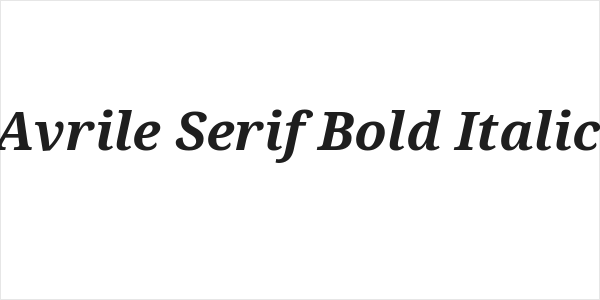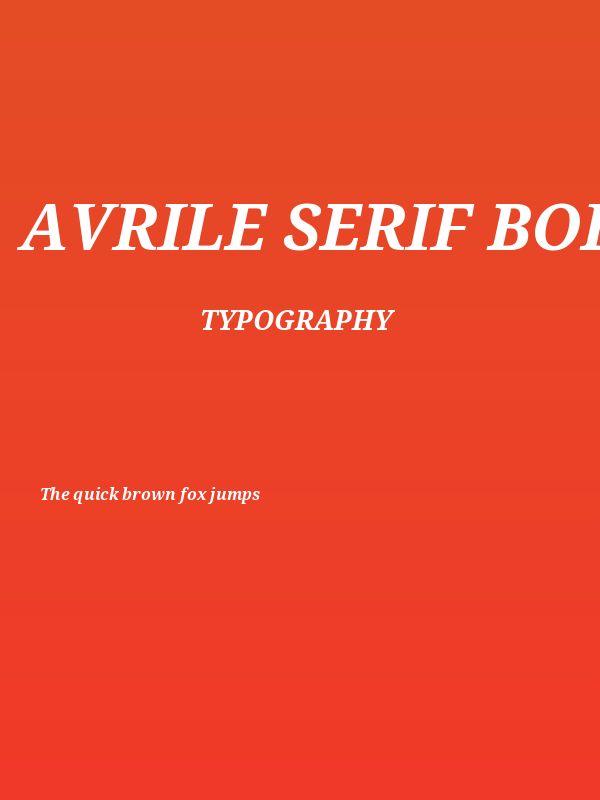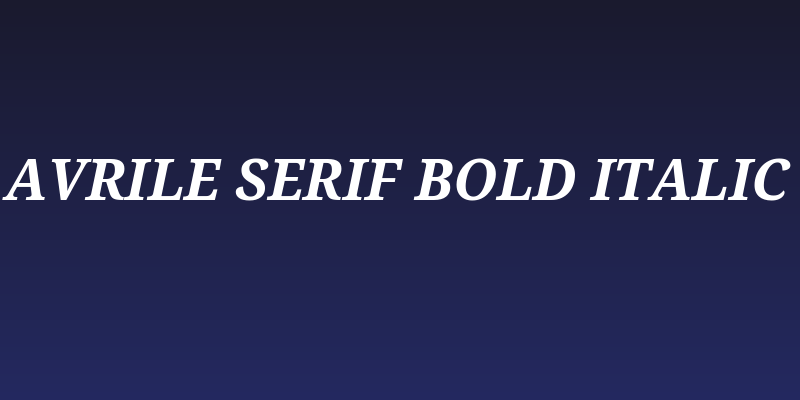
Avrile Serif Bold Italic Font
Avrile Serif Bold Italic Description
This font features a classic serif design with a bold and italicized style, giving it a strong and elegant appearance. The serifs are pronounced, adding a touch of sophistication and tradition. The italic slant provides a dynamic and flowing feel, making it suitable for both formal and creative applications. The bold weight ensures that the text stands out, while the overall design maintains readability and clarity. This font is versatile, suitable for a variety of uses from headlines to logos, where a touch of elegance and emphasis is desired.
| Proposed Projects | Ideal for book covers, formal invitations, branding, and editorial design. |